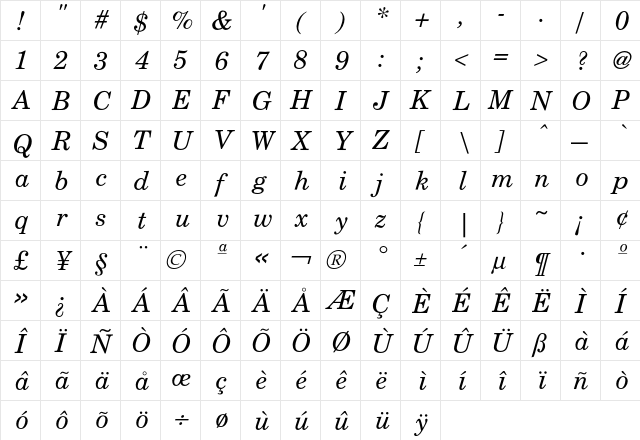
Century SchoolItalic Font Preview
Century SchoolItalic
Design Context for Century Typeface
Century is a composed and adaptable typeface that performs quietly and consistently across a wide range of design contexts. The dynamic lean of this cut emphasises speed and emphasis in any layout.
Pro Tip: Try Century for annotation and caption copy alongside an upright companion — the contrast in angle creates a dynamic but ordered typographic system.